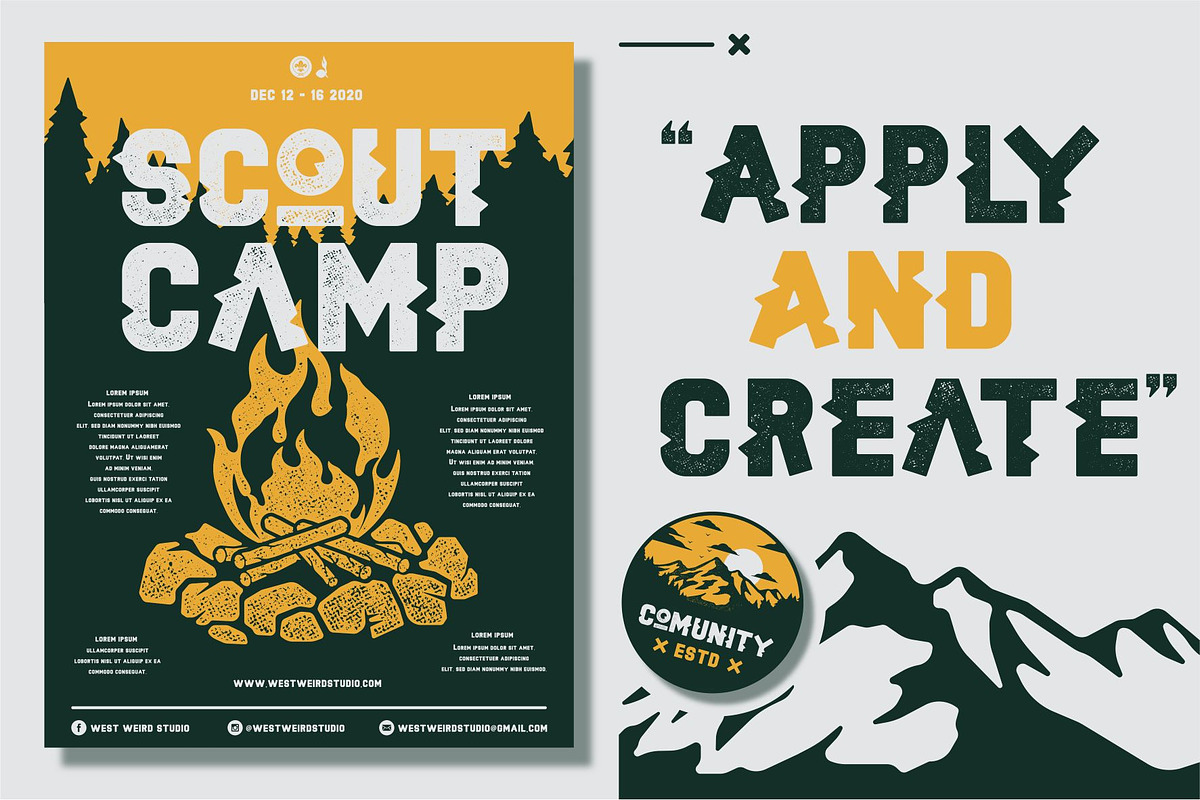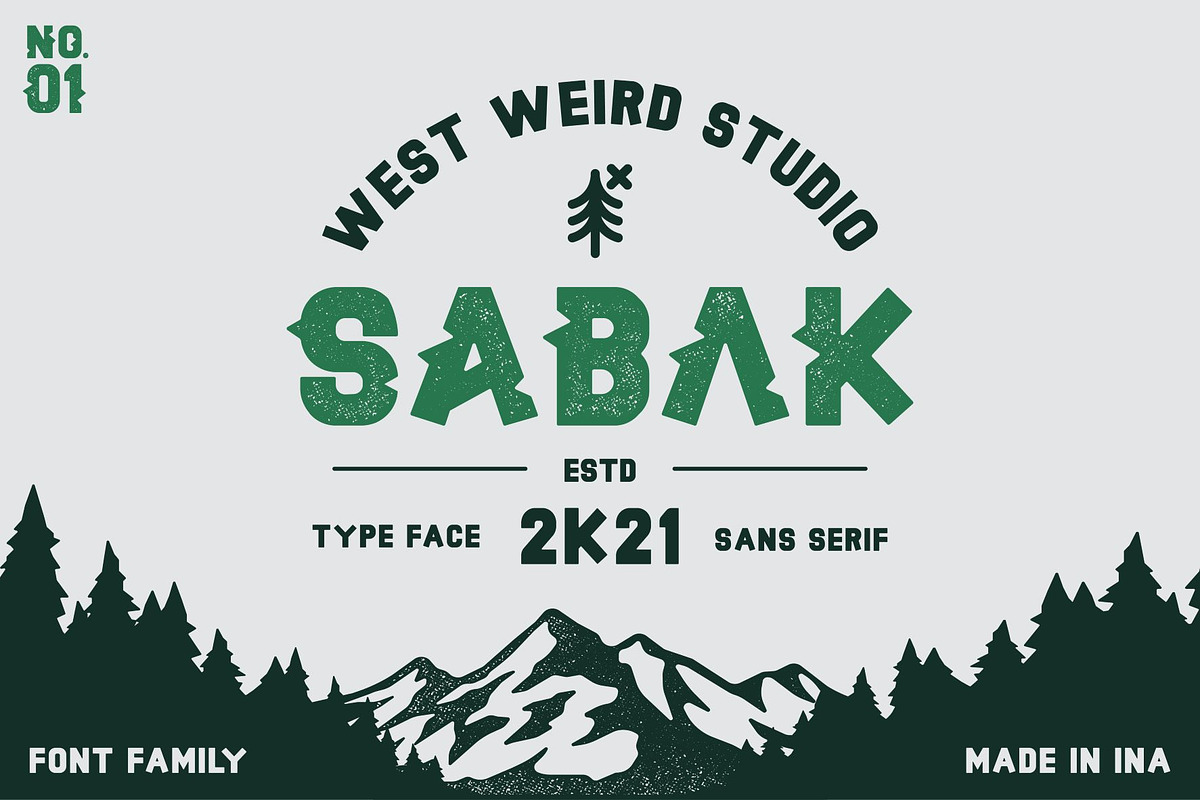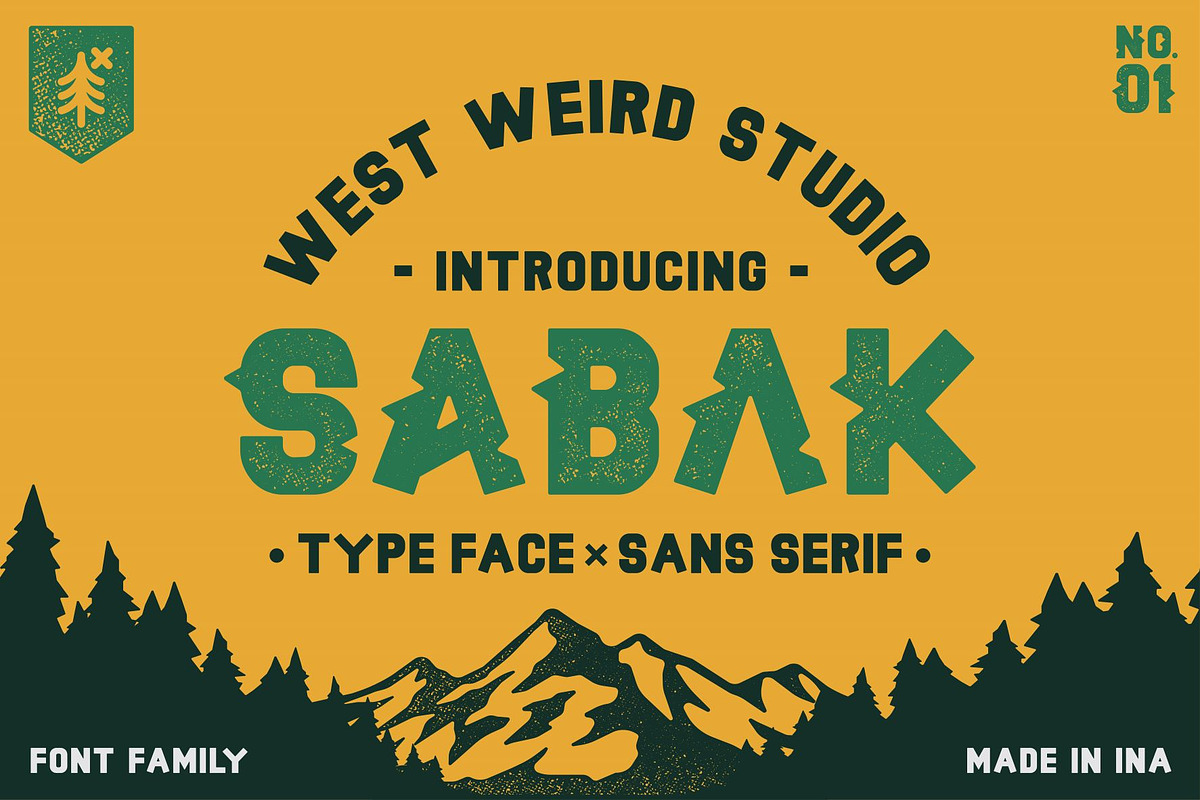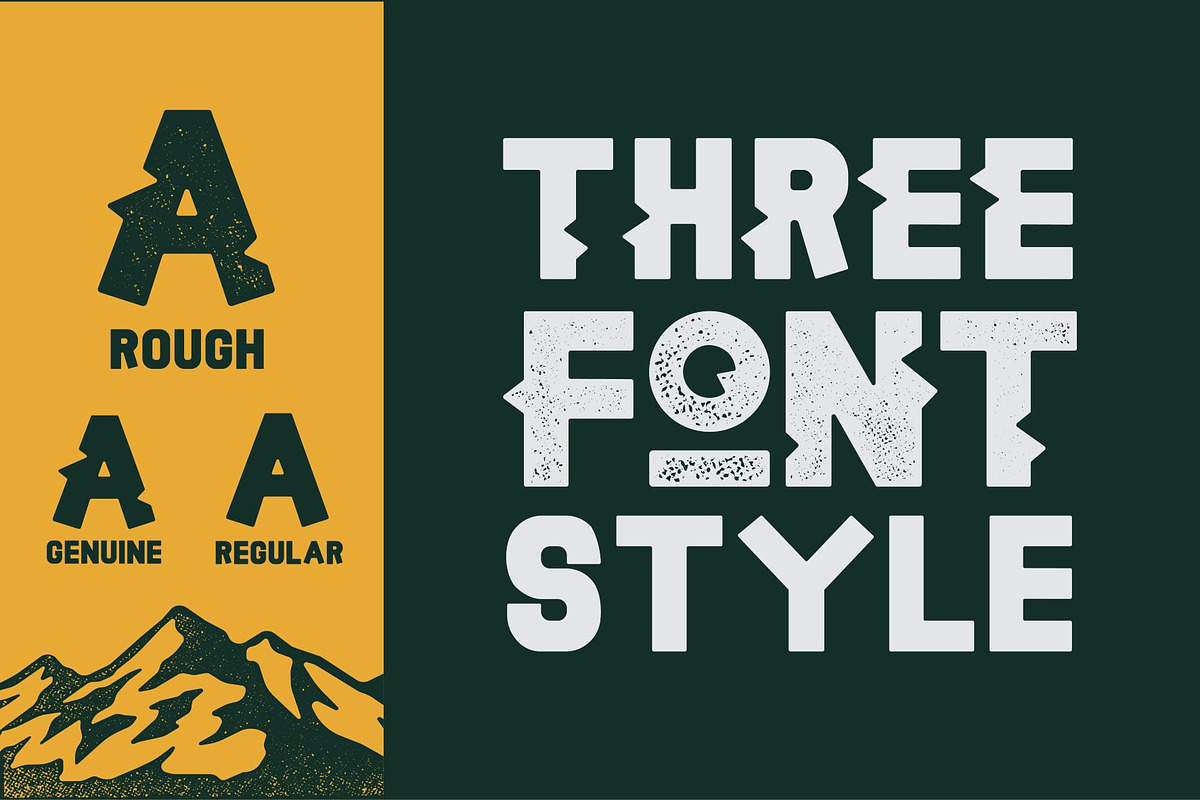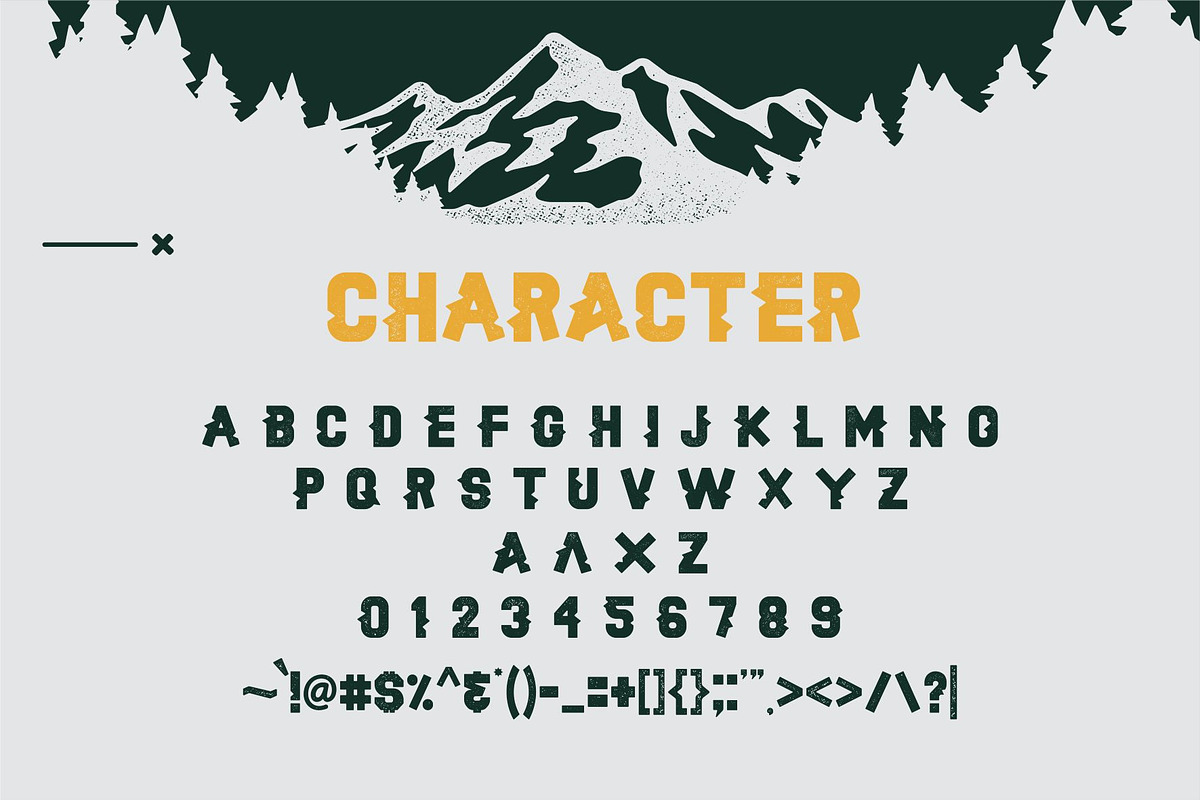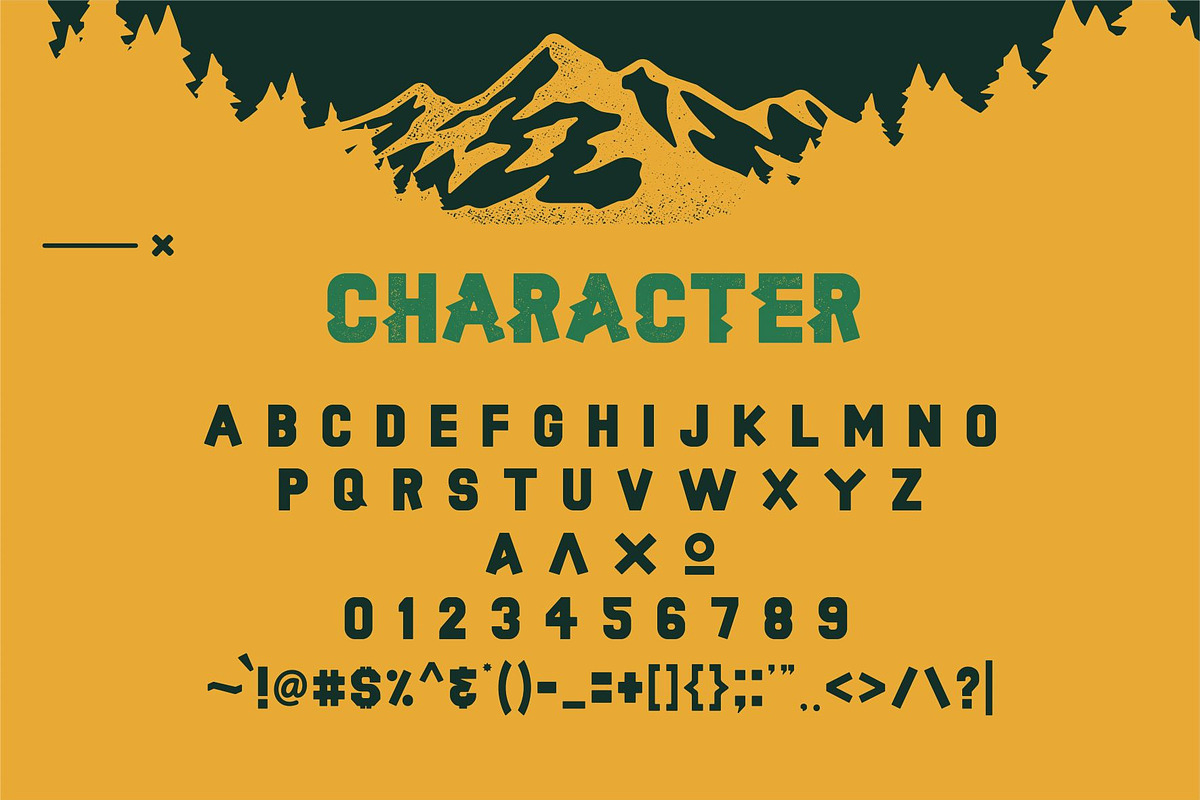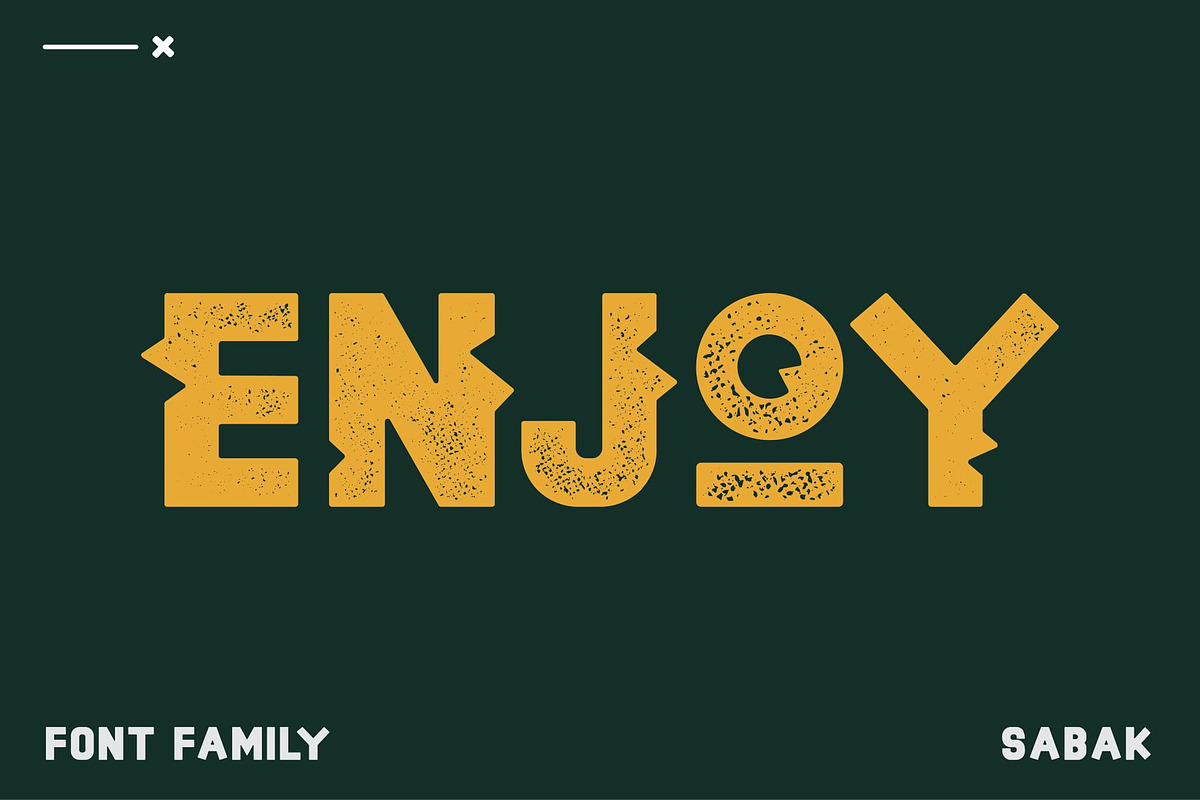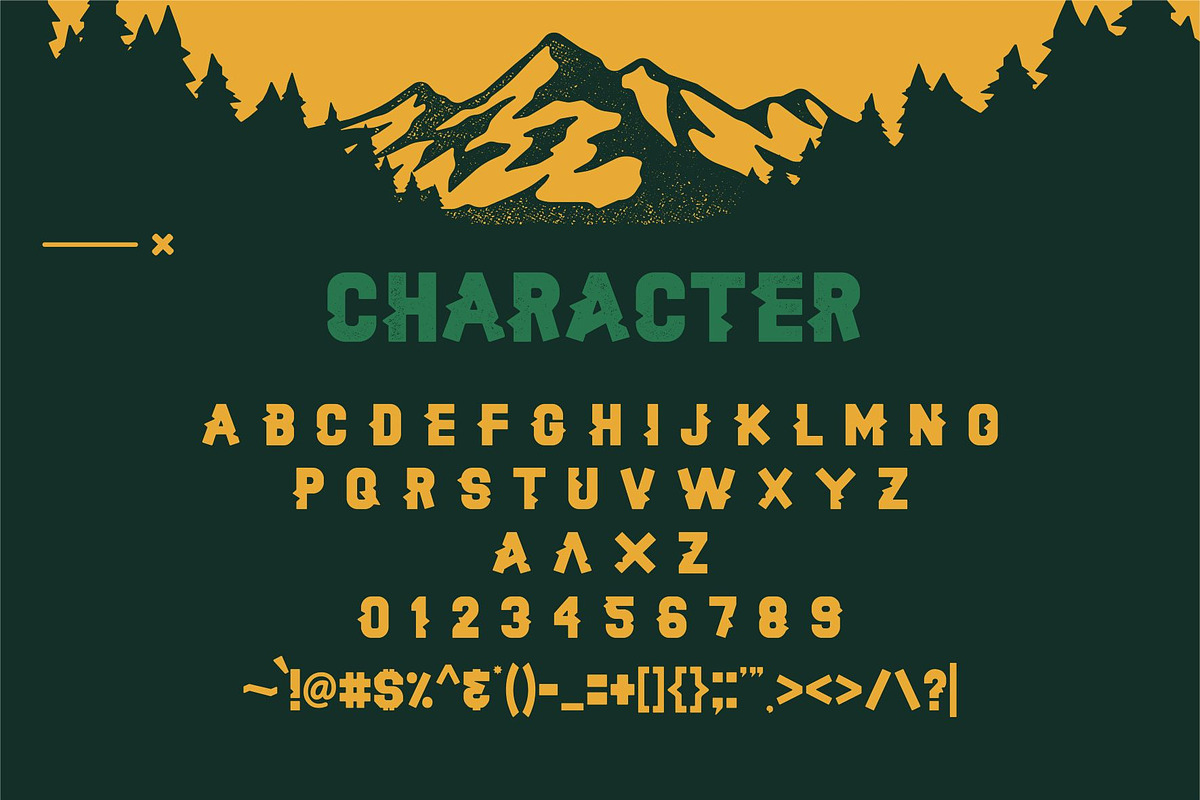
SABAK Sans Serif Style
SABAK is a font that has a strong, bold and wild character, and its appearance with thorns and rough patterns gives the impression of nature that smells of adventure so it is suitable for designs that have the impression of nature, adventure and wildness.